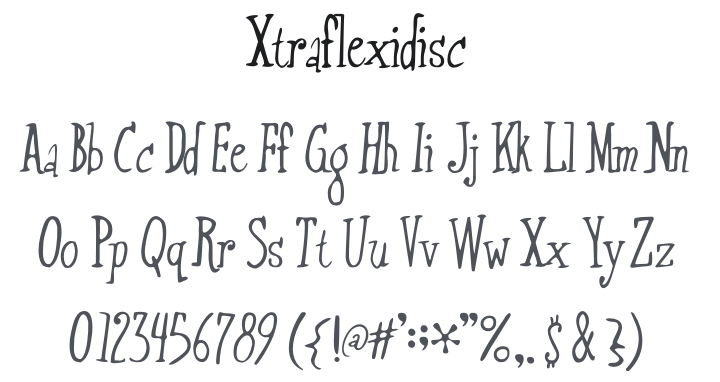
Xtraflexidisc Font
About Xtraflexidisc
Xtraflexidisc is a tall, condensed display serif typeface with dramatically elongated letterforms and quirky, slightly wobbly serifs that give it a whimsical, hand-drawn quality — elegant yet playful, like calligraphy practiced by an eccentric Victorian. The unusual vertical stretch creates a striking, distinctive rhythm across any headline. Perfect for fantasy book covers, boutique branding, editorial headlines, wedding stationery, and any design needing tall, charmingly idiosyncratic character.